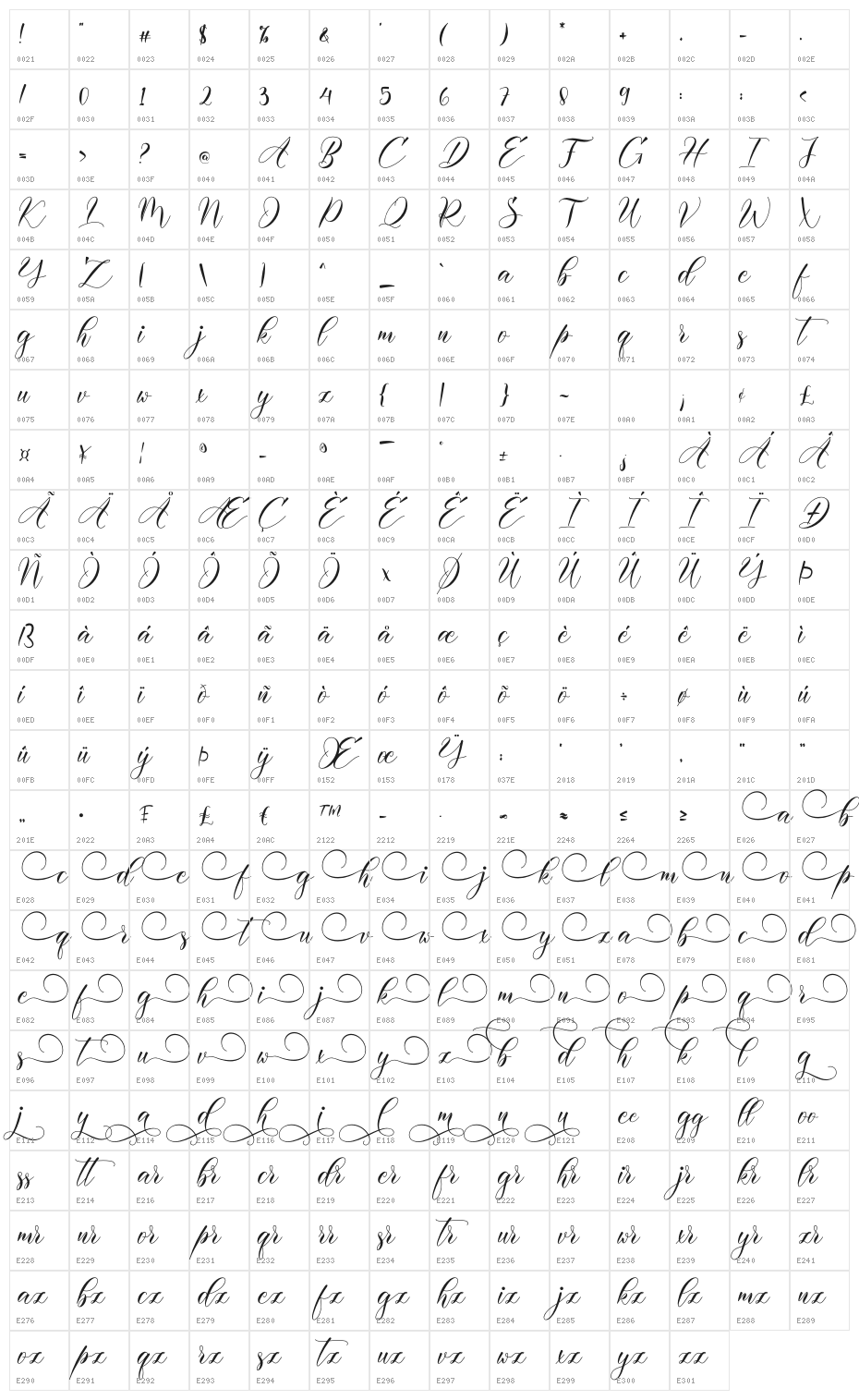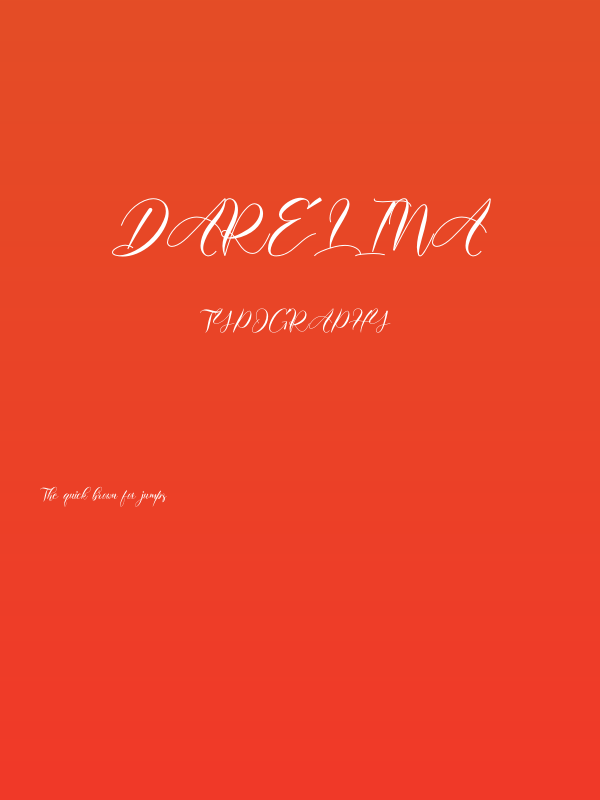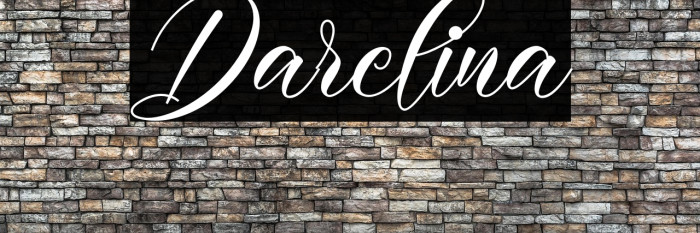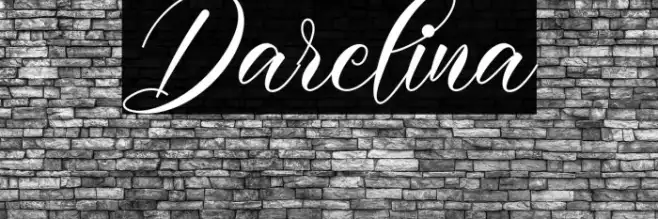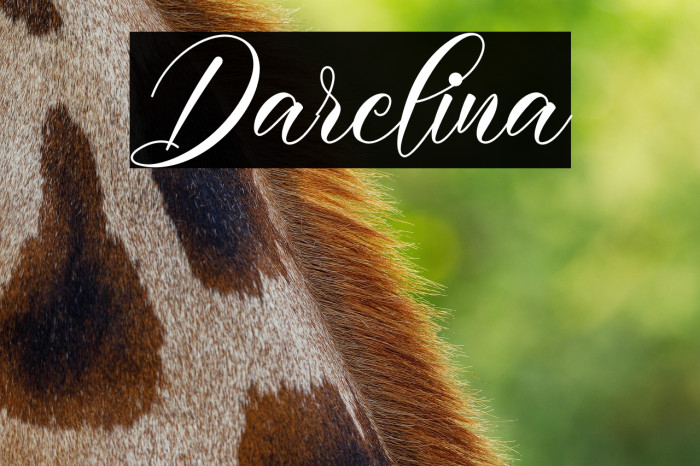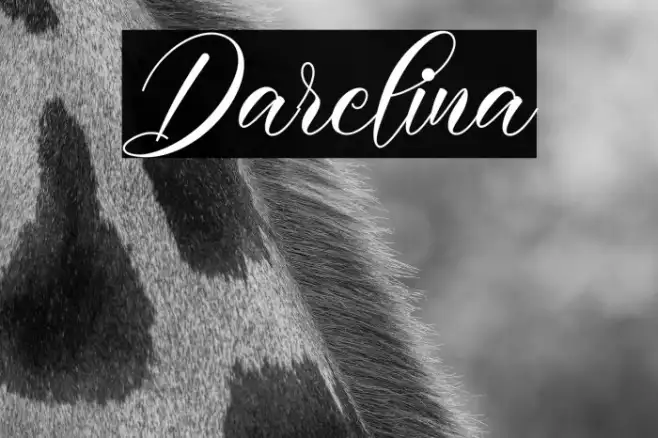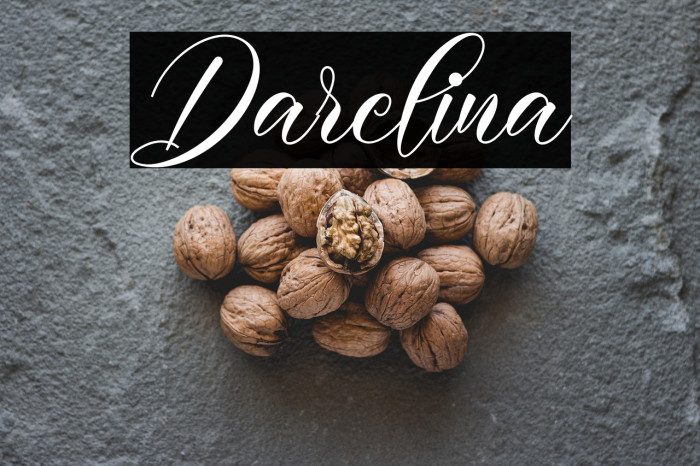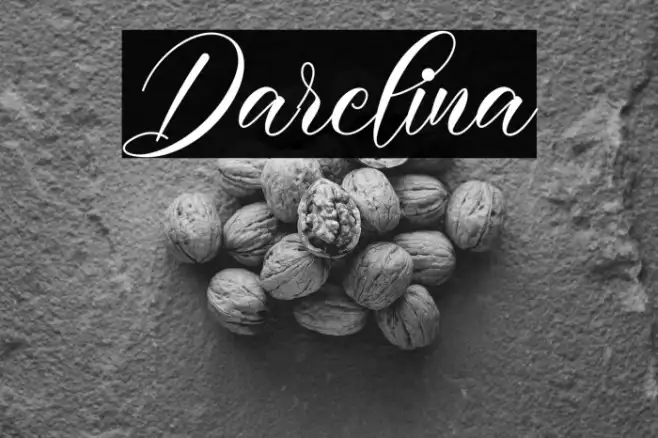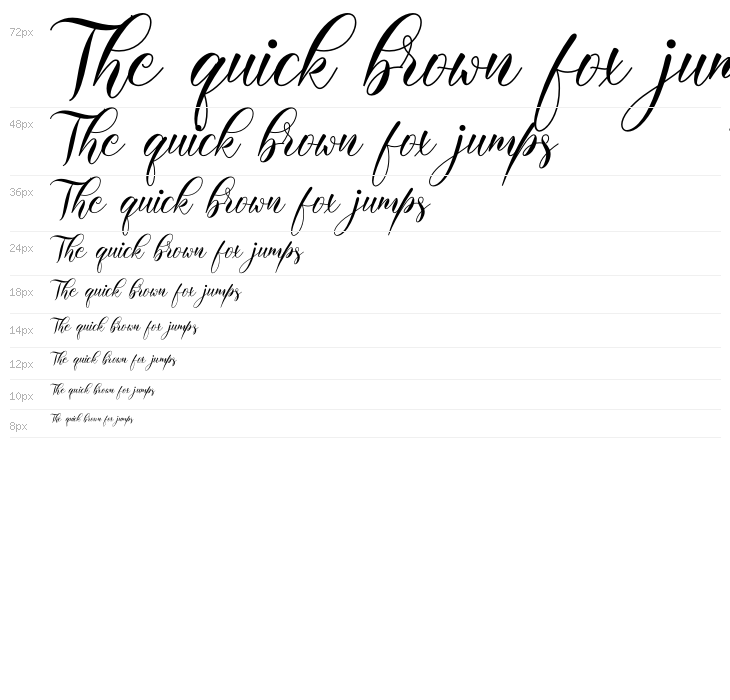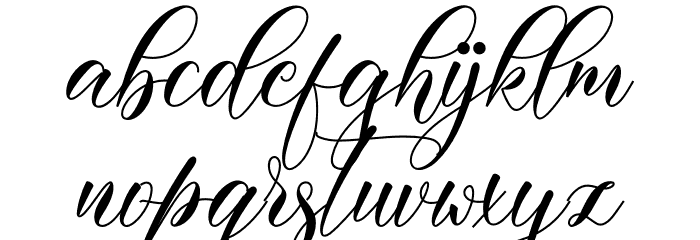
Darelina Font
Darelina Description
This elegant script font features flowing, interconnected characters that exude a sense of sophistication and grace. The uppercase letters are tall and slender, with delicate loops and flourishes that add a touch of whimsy. The lowercase letters maintain a consistent rhythm, with smooth curves and a slightly slanted orientation, enhancing the font's fluidity. The numerals are stylish and cohesive with the overall design, while the special characters are thoughtfully integrated, maintaining the font's aesthetic appeal. This font is perfect for projects that require a personal, handwritten touch, such as invitations, greeting cards, and branding materials.
| Overall Style | Elegant, Sophisticated |
| Proposed Projects | Ideal for wedding invitations, elegant branding, personal stationery, and artistic posters. |